Victorian typography is all about grandeur and meticulous detail. In this curated list, I’ve gathered 19 exceptional victorian font choices that bring a sense of 19th-century craftsmanship and authentic heritage to any modern creative project.
1. Royal Abraham Font: A Timeless Victorian Masterpiece
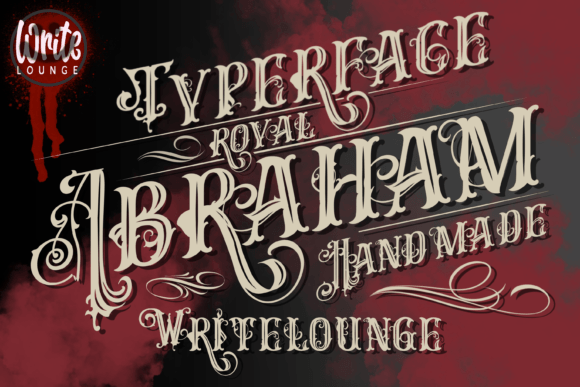
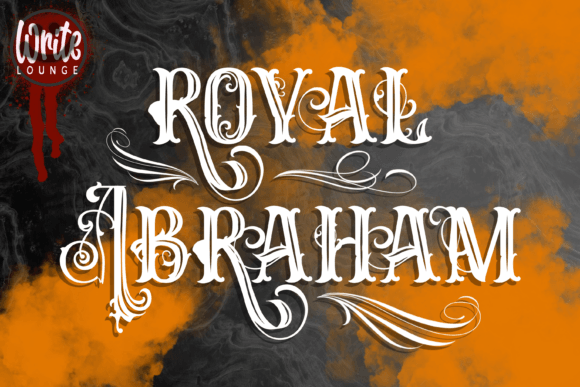
When I first laid eyes on Royal Abraham, I felt like I’d stepped into a high-end 19th-century parlor. It isn’t just a typical victorian font; it is a royal, artsy blackletter that commands respect. I love the intricate swirls and the vintage, handmade texture that give every letter a sense of historical importance and craftsmanship.
This typeface is my absolute favorite for whiskey labels, premium t-shirt designs, and vintage-style posters. The real advantage is its unique, stylish silhouette that makes even simple words look like a custom piece of art. If you need a victorian font that brings a sophisticated, “old-world royal” authority to your branding or logos, Royal Abraham is the king of the shelf.
2. Hero Beam: The Bold Spirit of the Victorian Era
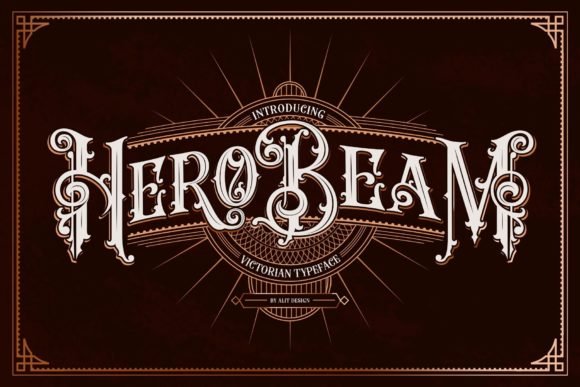
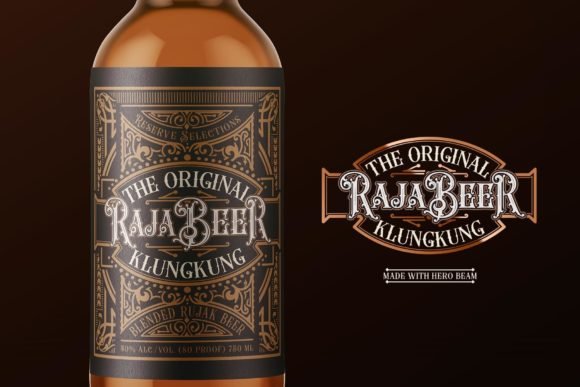
When I first loaded Hero Beam into my workspace, I felt an immediate surge of creative confidence. This isn’t just a standard victorian font; it’s a bold, uniquely structured blackletter that feels like it was forged in an 1800s workshop. I’m particularly obsessed with the ornate swashes and the way the heavy strokes command attention while maintaining that intricate, old-world charm.
I find this typeface absolutely perfect for premium beverage labels, vintage signage, and high-impact branding projects. The real game-changer for me is that it’s PUA encoded, meaning I can access every single artistic glyph and flourish with total ease. If you want a victorian font that ensures your designs stand out with a “handmade but heroic” authority, Hero Beam is a top-tier choice.
3. Bull Stand Font: The Bold Elegance of Victorian Craft
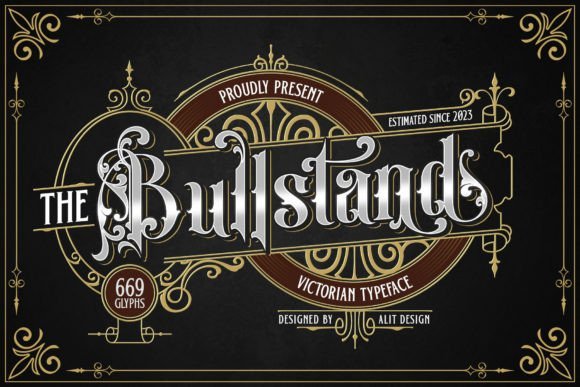
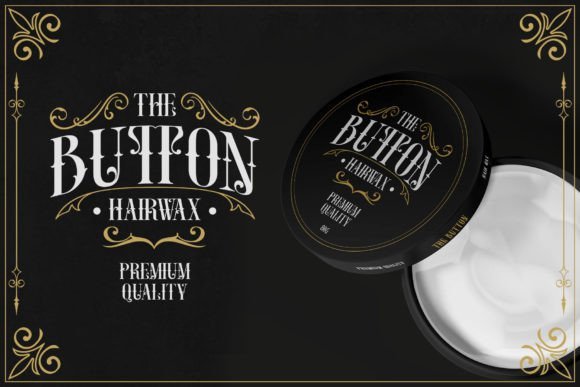
Working with Bull Stand immediately transports you to an era of meticulous craftsmanship and industrial pride. This isn’t just another victorian font; it is a powerful, ornate typeface that perfectly captures the heavy, sophisticated aesthetic of the 19th century. I love the way its sharp serifs and decorative flourishes give every word a sense of established authority and timeless style.
I find this typeface to be a perfect match for premium product packaging, vintage barber shop branding, and artisanal labels. The real advantage of using this victorian font is its incredible detail, featuring 669 glyphs that allow for endless customization. If you want your design to feel like a handcrafted masterpiece with a “bold and gritty” Victorian edge, Bull Stand is the professional choice that never misses.
4. Christmas Lovers: A Modern Take on Victorian Luxury
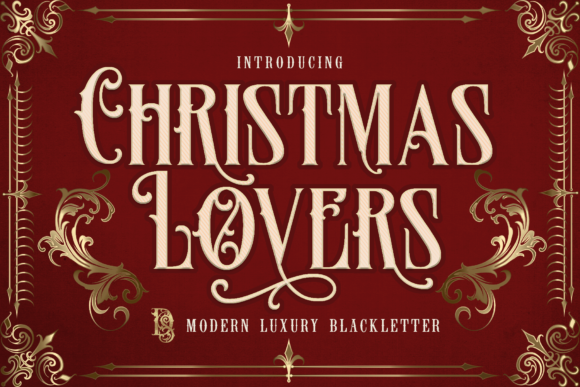
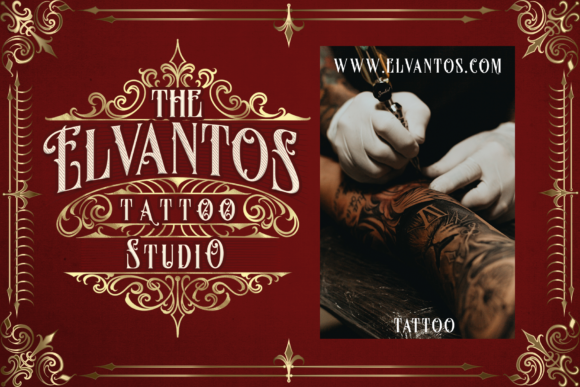
When I first started playing around with Christmas Lovers, I was struck by how it balances that heavy blackletter tradition with a surprisingly graceful, vintage flow. It’s not just another victorian font; it feels like a piece of authentic history reimagined for a modern luxury aesthetic. I personally love the way the elongated swashes wrap around the characters, giving every word a sense of handcrafted prestige that you just don’t find in standard digital typefaces.
I’ve found this typeface to be a perfect companion for tattoo studio branding, high-end event invitations, and boutique product packaging. The biggest win for me is that it’s PUA encoded, so accessing all those gorgeous, intricate glyphs is completely seamless. If you’re looking for a victorian font that brings a “modern luxury” soul to your creative projects, Christmas Lovers is an absolute gem.
5. Brighton Saster: A Masterpiece of Ornamental Elegance
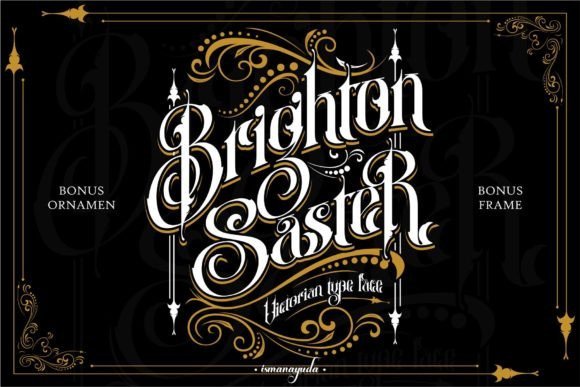
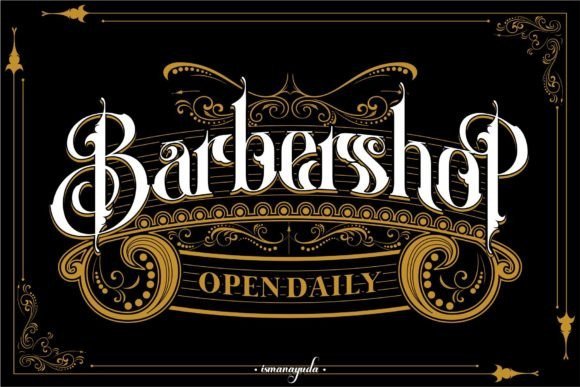
I use the Brighton Saster font to capture the spirit of 19th-century typography. This victorian font is not just a set of letters, but a whole drama with sharp spurs and graceful curves that seem to have been taken from an old pharmacy. I wanted to create something that looked handwritten and evoked a sense of authority, giving your layouts a unique spirit of tradition and craftsmanship.
It is a powerful tool for T-shirt layouts, cafe signs, and tattoo parlor branding. I also found that it works great as a tattoo font for those looking for intricate lines. To make your life easier, I’ve added bonus vector ornaments and frames, allowing you to create a complete, cohesive aesthetic without having to look for additional resources.
6. Black Fellas: The Ultimate Victorian Font for Bold Branding
I often reach for Black Fellas when I need a victorian font that carries a bit of weight and mystery. It’s a striking blackletter face that feels incredibly timeless, blending sharp edges with a sophisticated, stylish flow. There is an undeniable grit to it that makes any design feel like a custom piece of art rather than a standard digital layout.
Final Thoughts
The beauty of Victorian typography lies in its ability to command attention through detail. By integrating these 19 fonts into your workflow, you can easily achieve that sought-after blend of old-world prestige and contemporary professional quality.